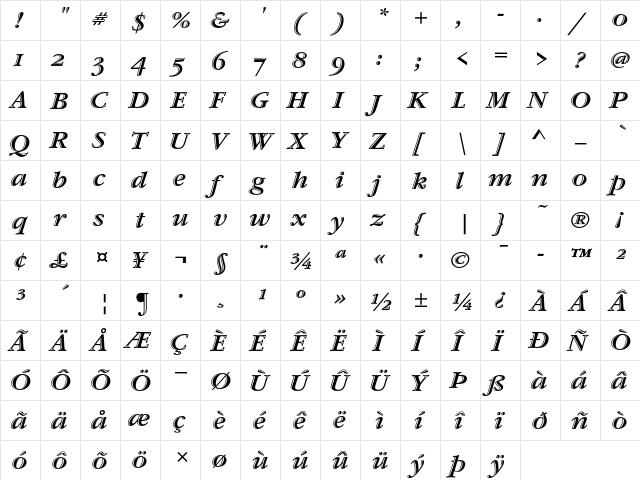
Garamond Handtooled ITC Italic OS
Design Context for Garamond Handtooled ITC Typeface
Garamond Handtooled ITC brings a calligraphic fluidity to the page — its connecting strokes and expressive curves give it an unmistakably human quality.
Font Pairing: Combine Garamond Handtooled ITC with a simple geometric sans for maximum contrast — the tension between flowing curves and clean structure is a classic typographic pairing.
Pro Tip: Pair Garamond Handtooled ITC with a clean sans-serif for supporting text. The contrast between fluid script and geometric structure creates an elegant typographic hierarchy.